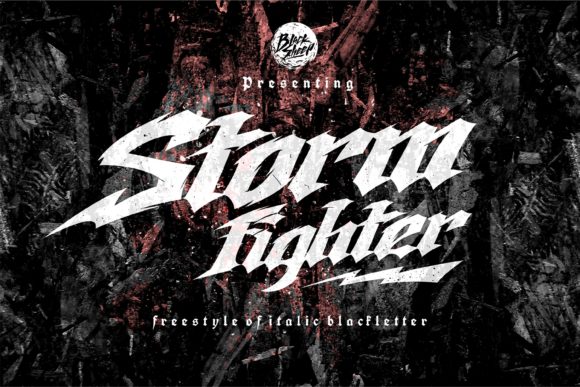
Introducing Storm Fighter Font - the best font for scripture tattoos and much more! Created by Blacksheep id, this freestyle blackletter font boasts a gothic and mysterious style that is perfect for all your horror-themed needs.
Whether you're looking for a font that will make your tattoos stand out or one that will add a touch of intrigue to your shirt designs, Storm Fighter has got you covered. It's also the ideal choice for sword action, action game covers, logos and branding, product designs, and labels.
Storm Fighter's unique style is sure to make your designs pop. With its bold, striking letters and intricate details, it's the perfect font for anyone who wants to make a statement. Its versatility and adaptability make it a must-have for any designer's toolkit.
But Storm Fighter isn't just about aesthetics - it's also easy to use. With its clear and legible letters, you won't have to worry about your message getting lost in the design. Plus, it's available in a range of formats, making it compatible with all major design software.
So why choose Storm Fighter Font? Because it's more than just a font - it's an experience. Its gothic and mysterious style will transport you to another world, one filled with mystery and intrigue. It's the perfect font for anyone looking to make an impact and leave a lasting impression.